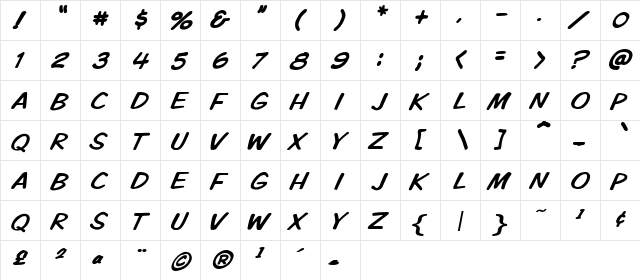
VTCKomixationCapsItalic Regular Font Preview
VTCKomixationCapsItalic Regular
VTCKomixationCapsItalic Regular Font Details
Design Context for VTCKomixationCapsItalic Typeface
VTCKomixationCapsItalic is a composed and adaptable typeface that performs quietly and consistently across a wide range of design contexts. The dynamic lean of this cut emphasises speed and emphasis in any layout.
Pro Tip: Try VTCKomixationCapsItalic for annotation and caption copy alongside an upright companion — the contrast in angle creates a dynamic but ordered typographic system.